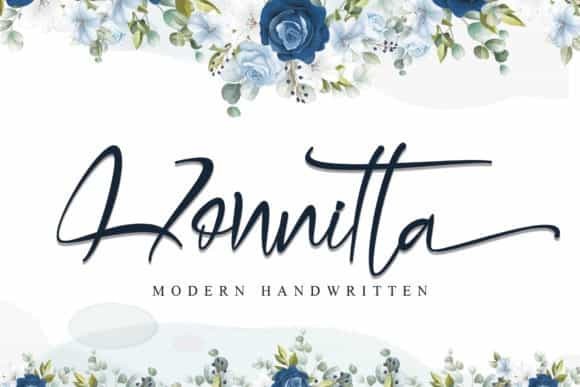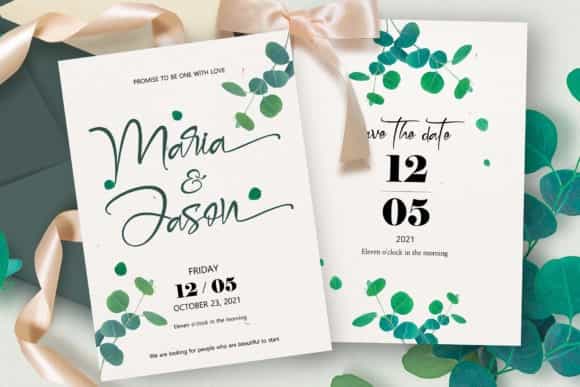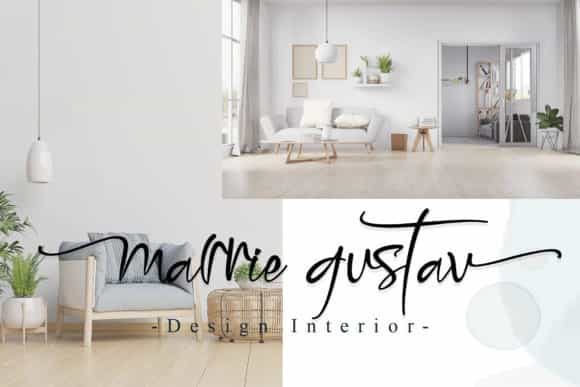
Honnitta is a lovely handwritten font which looks very modern. It is adorned with the most beautiful swashes and ligatures that make this script very flexible. Whether you need fonts for Instagram or calligraphy scripts for your DIY projects, Honnitta will convert any creative idea into a masterpiece.